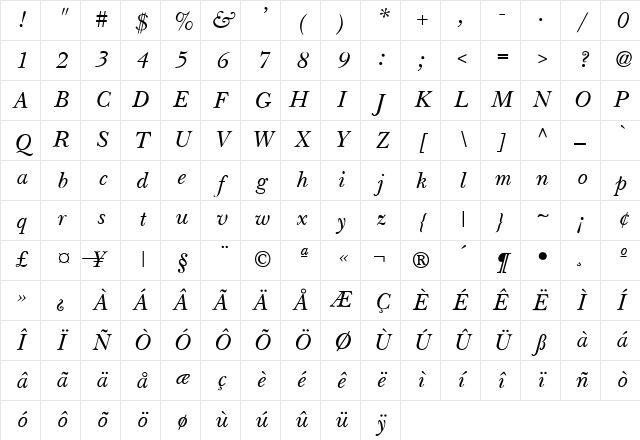
Bobson Italic is a composed and adaptable typeface that performs quietly and consistently across a wide range of design contexts. The slanted form adds forward momentum and visual energy.
Pro Tip: Use Bobson Italic for emphasis, pull quotes, and subheadings where its slanted energy can add rhythm to the layout.